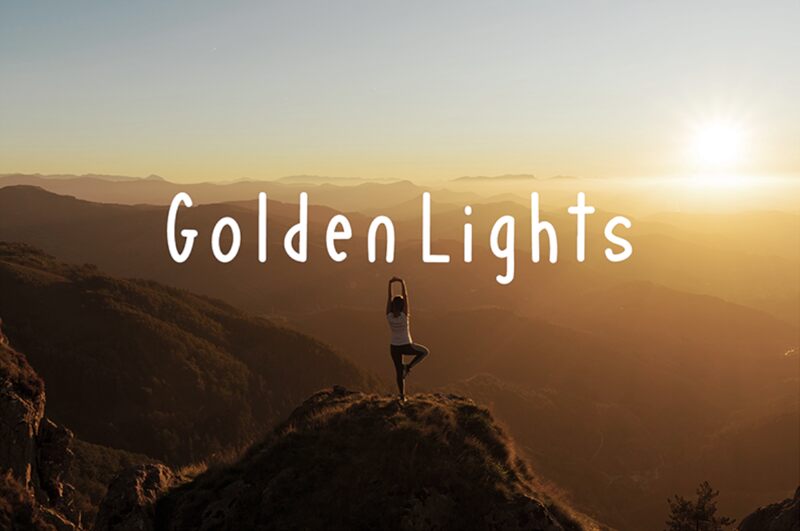
Introducing Golden Lights font, a narrow, light handwritten font from Muhammad Hisyam Rivai. This creative font is suitable for projects that require a personal touch-think logos, wedding invitations and greeting cards.
This font was created By Phantom Creative Studio (Hisyam) From Bandung - Indonesia .